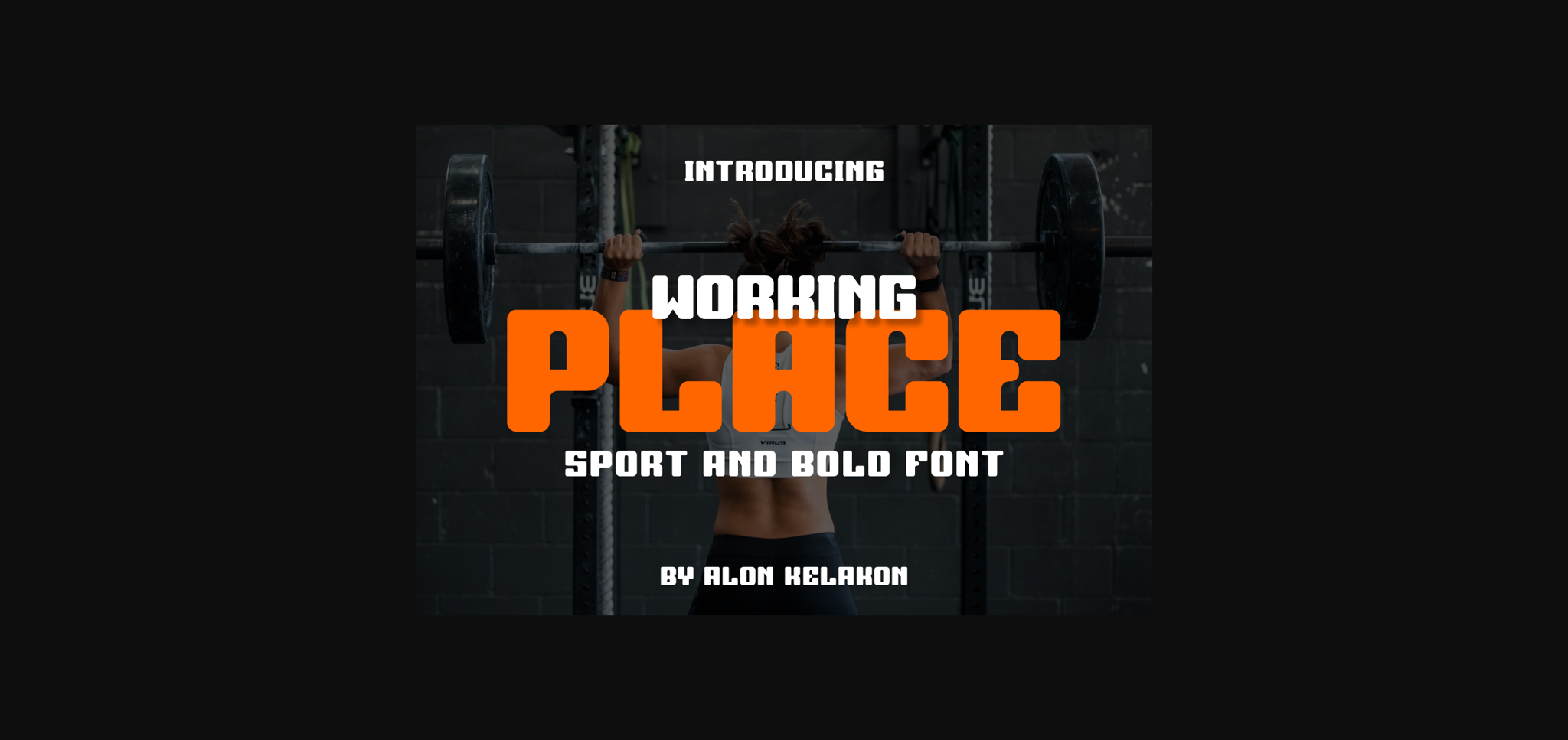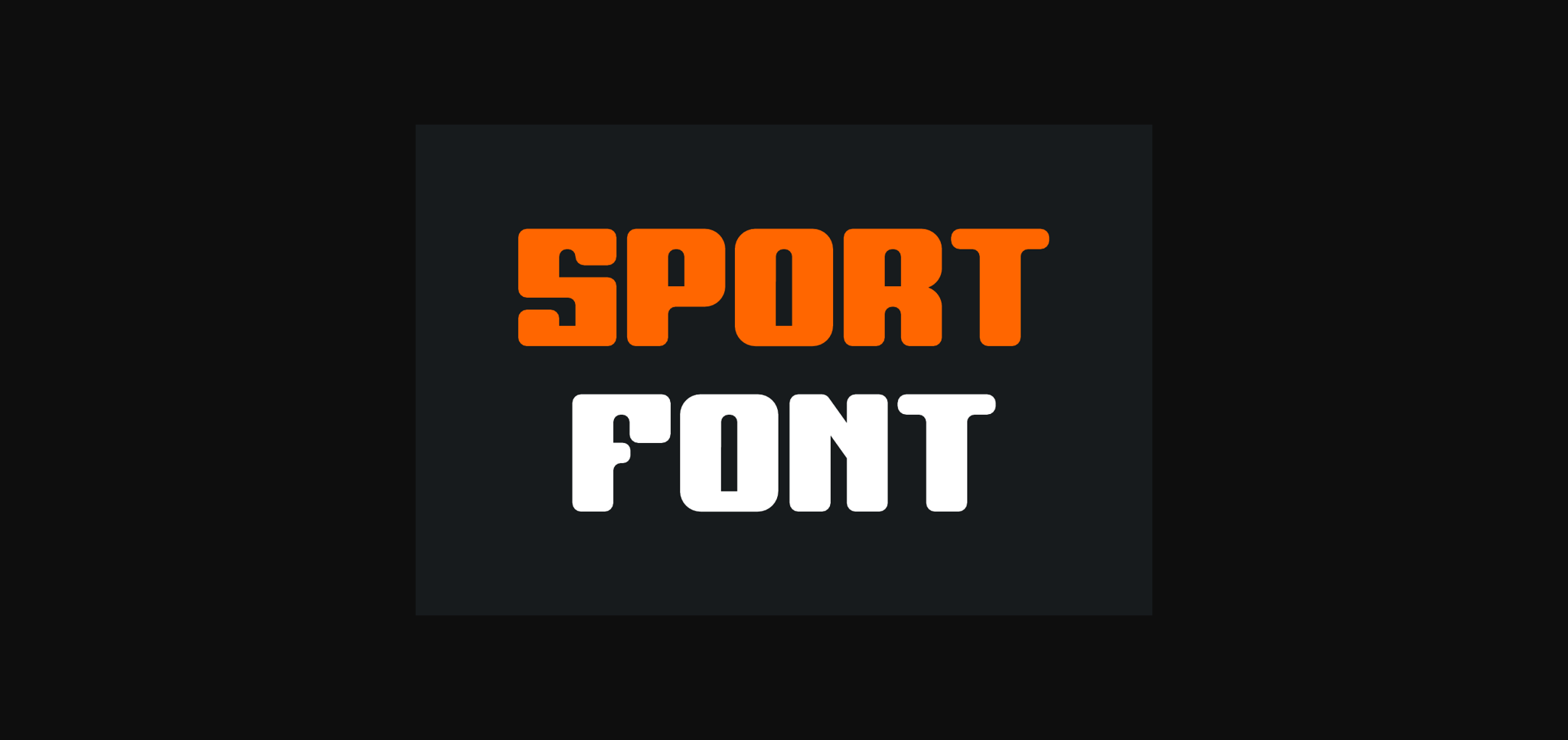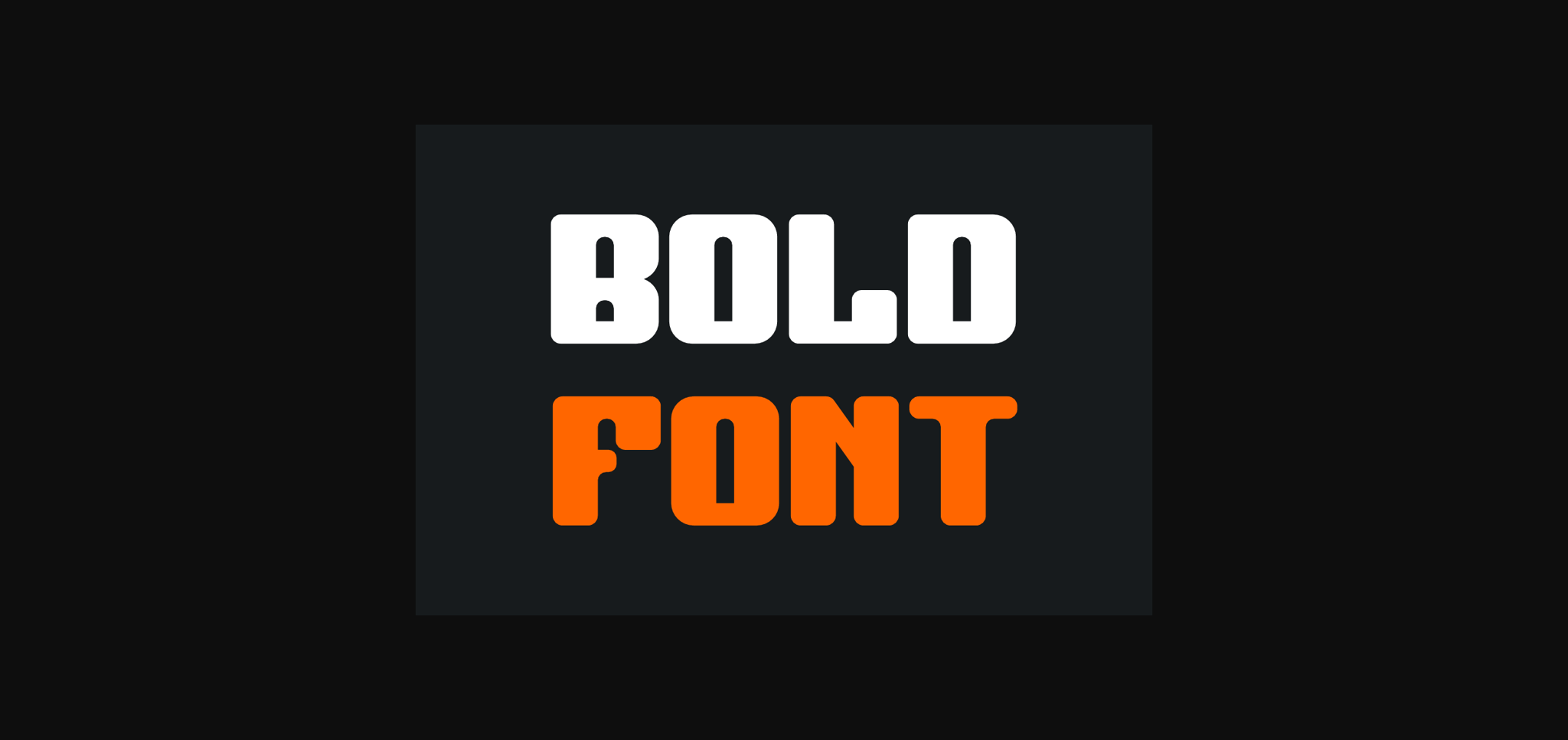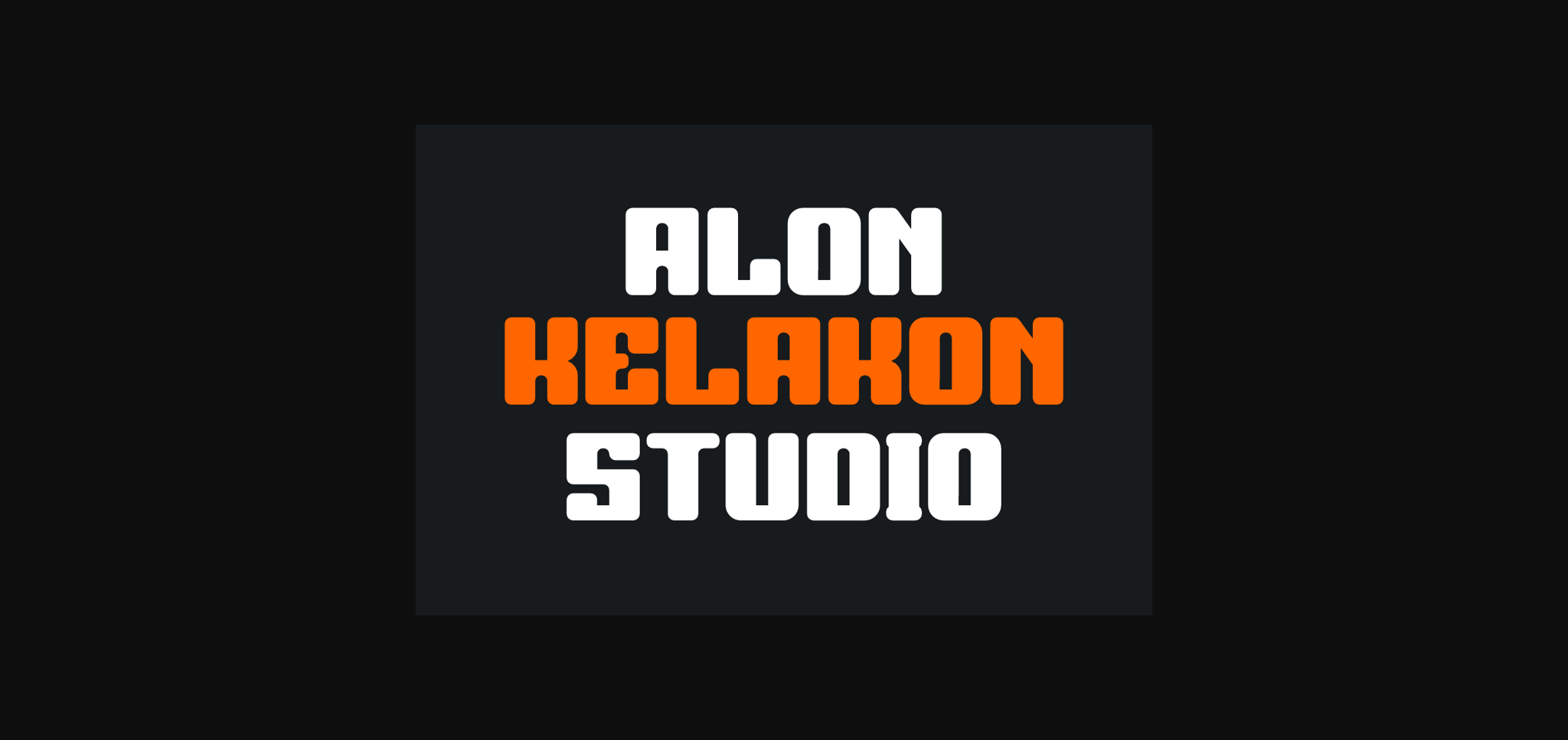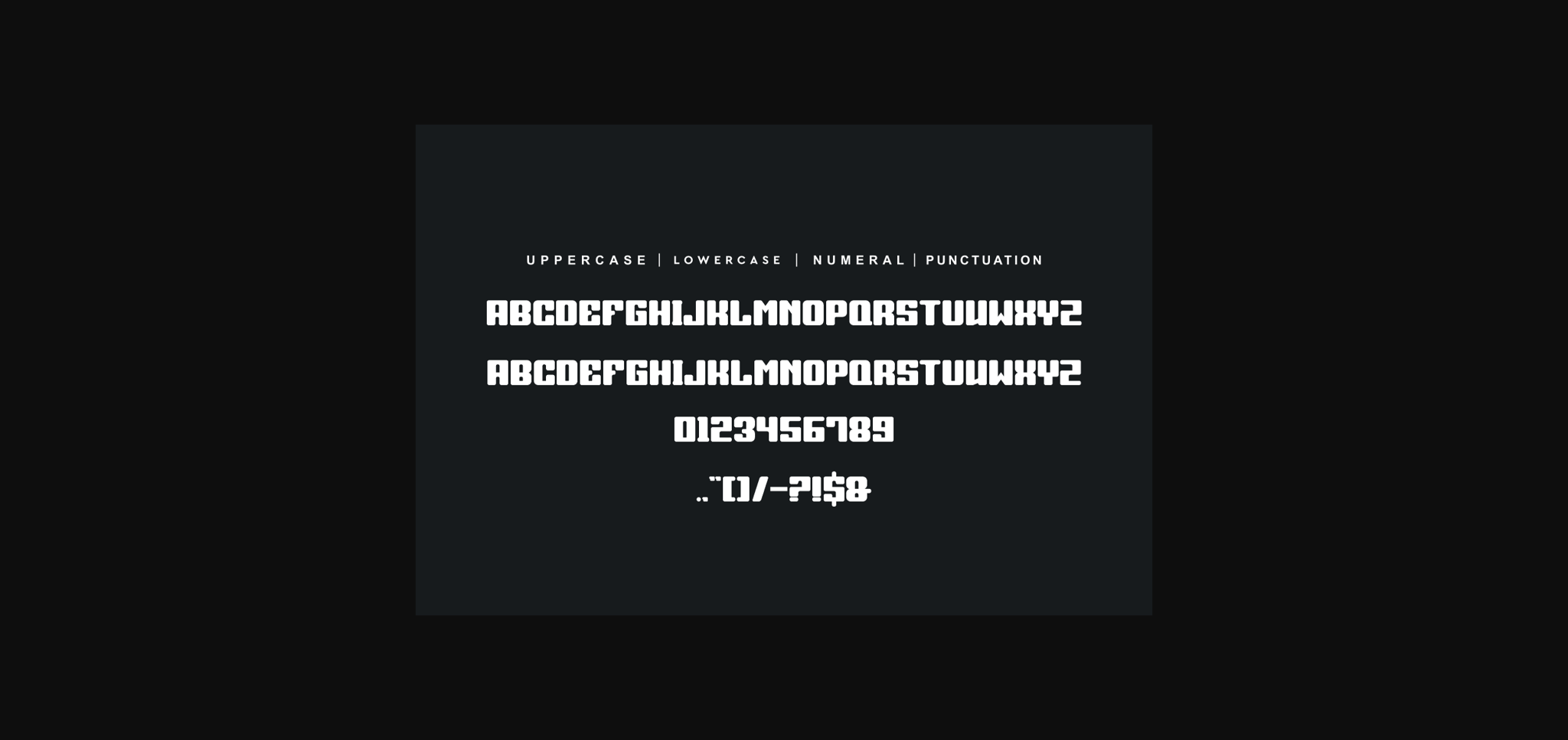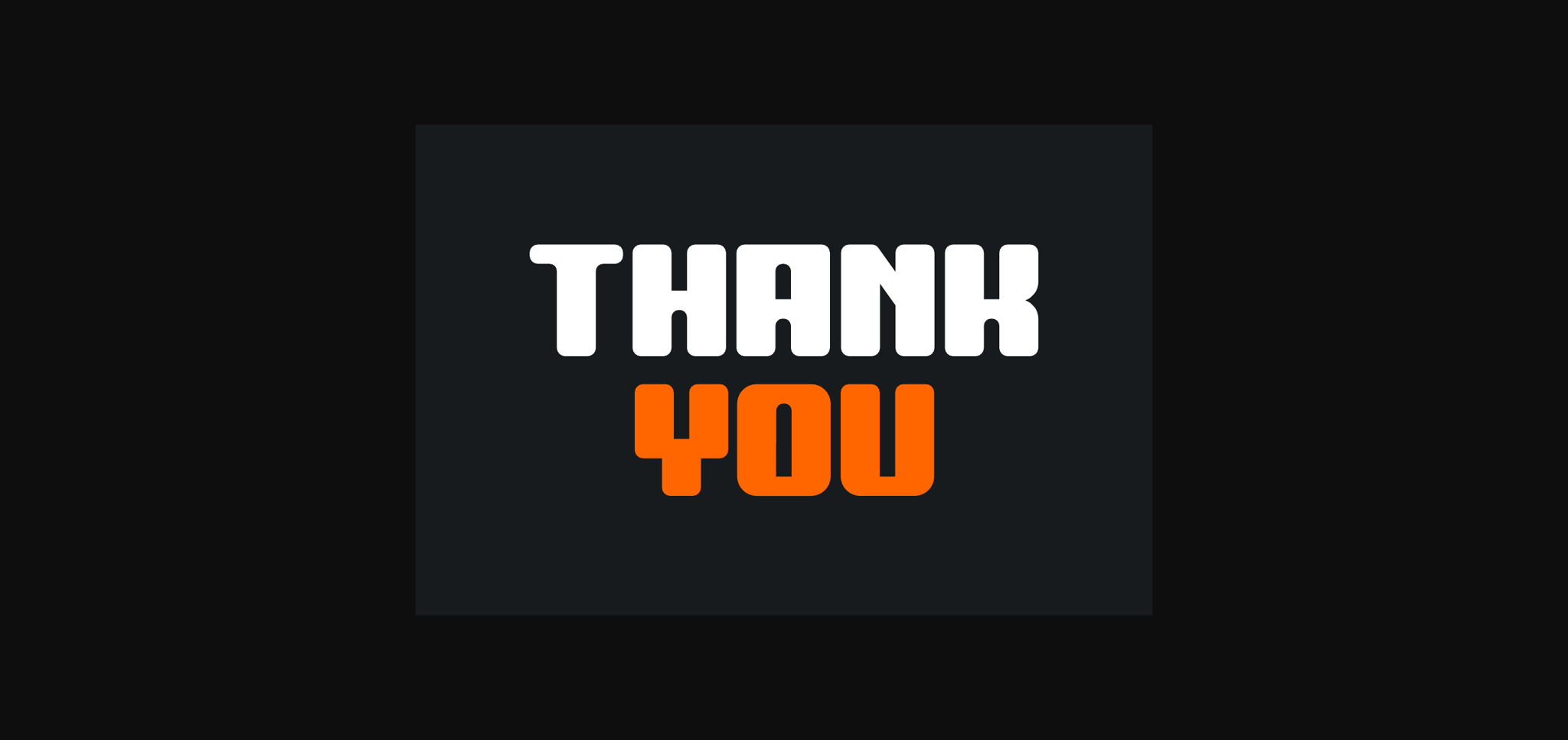
Working Place Font
About Working Place Font
Working Place Font is unique. Ready to use for your design like labeling, clothing, movie scenes, posters, movie titles, gigs, album covers, logos, and much more.